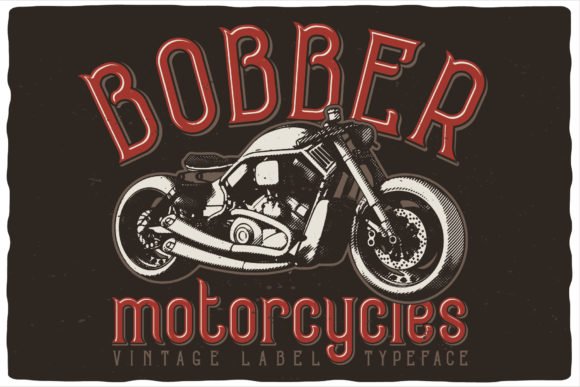
The Thrill of Design: Unleashing the Power of Bobber Motorcycles Font
There’s something magical about the moment when a design idea clicks into place – the spark of creativity, the rush of excitement, and the sense that you’ve created something truly special. For designers, this feeling is what drives us to push the boundaries of innovation and style. And that’s exactly where the Bobber Motorcycles Font comes in – a bold and retro-styled display font that’s sure to rev up your designs.
Borrowing its inspiration from the classic motorcycle culture of the 1950s and 60s, the Bobber Motorcycles Font is the perfect addition to any project that needs a vintage, powerful touch. Whether you’re working on a racing design, a sporting event, or any other project that requires a bold statement, this font is sure to deliver. Its unique blend of modern and vintage elements makes it a valuable asset for designers looking to add a touch of nostalgia and sophistication to their work.
Key Features of Bobber Motorcycles Font
- Unique Characteristics: Bobber Motorcycles Font features a unique blend of vintage and modern elements, with intricate details and textures that evoke the spirit of classic motorcycles.
- Font Style: The font is available in a single style, but it offers a range of weights, from Light to Bold, allowing designers to choose the perfect level of intensity for their project.
Designer Review: Bobber Motorcycles Font
I’ve had the chance to work with the Bobber Motorcycles Font, and I must say it’s a unique and interesting typeface. Here are some of its standout features:
- ✨ The font’s rugged, industrial feel really captures the essence of a Bobber motorcycle. It’s perfect for brands that want to convey a sense of toughness and reliability.
- ✨ The font’s bold lines and geometric shapes make it highly legible, even at small sizes. This is a big plus for use on merchandise, signage, and other applications where text needs to be clear and easy to read.
- ✨ The font’s customization options are extensive, with a wide range of weights and styles to choose from. This makes it easy to tailor the font to your specific brand identity.
- ⚠️ The font may not be the best choice for more delicate or refined applications, as its rugged feel can come across as abrasive or aggressive in certain contexts.
- ⚠️ Some users may find the font’s bold lines and geometric shapes to be a bit too harsh or overwhelming, especially in smaller text sizes.
Overall, I think the Bobber Motorcycles Font is a great choice for brands that want to convey a sense of toughness and reliability. While it may not be suitable for every application, it’s definitely worth considering for projects that require a bold, rugged feel.
The Bobber Motorcycles Font is a great choice for designs related to motorcycles, automotive, or travel.
Use it to create eye-catching posters, flyers, or social media graphics for motorcycle events, rallies, or clubs.
To get the most out of the font, use it in conjunction with bold, distressed, or gritty textures to give your designs a rugged, industrial look.